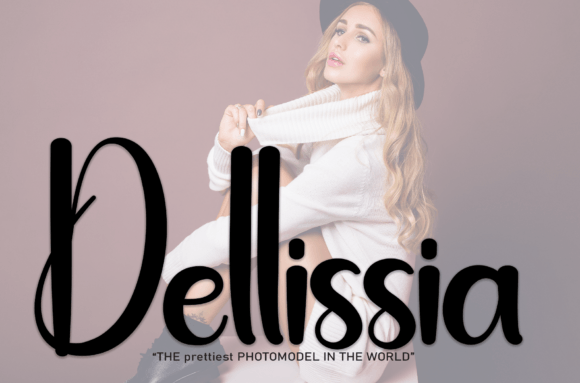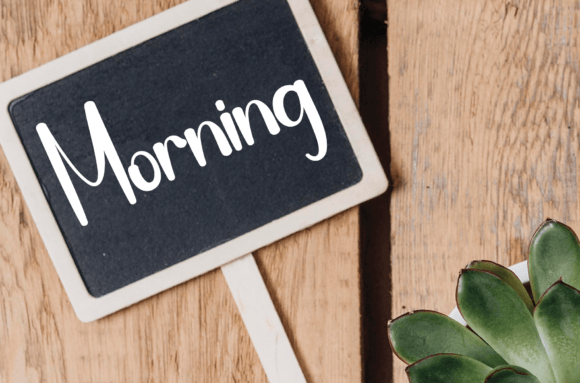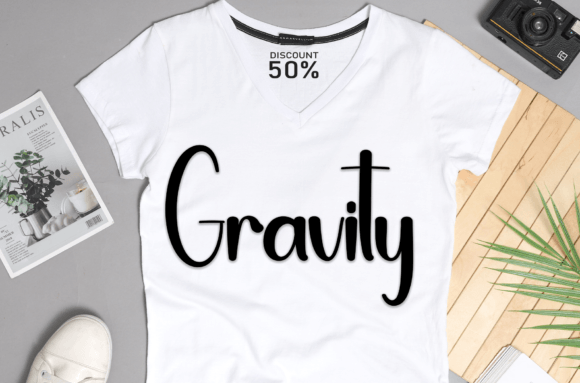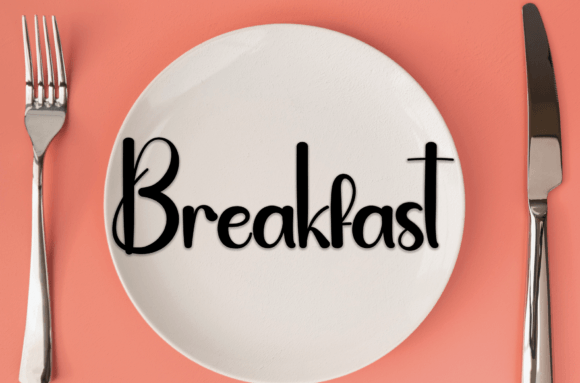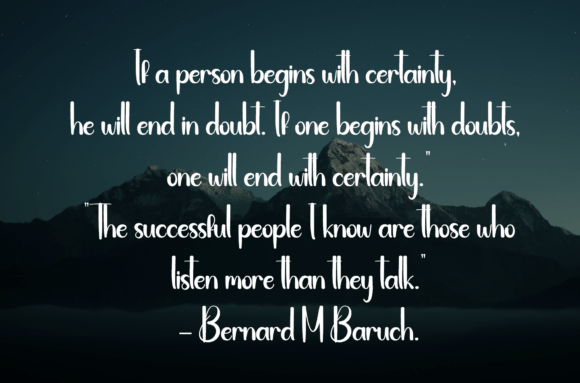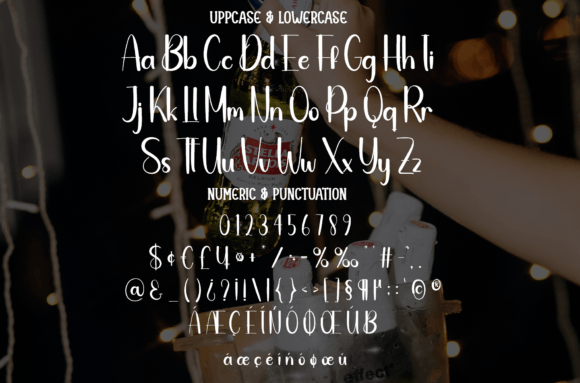
Beverage Font: Adding a Sweet and Friendly Touch to Your Designs
Are you looking for a font that can add a personal and playful touch to your designs? Look no further than the Beverage font! This sweet and friendly handwritten font is perfect for creating wedding invitations, cards, and other designs that require a fun and creative vibe.
What is Beverage Font?
Beverage font is a type of handwritten font that is designed to look like it was written with a pen or pencil. It has a casual and relaxed feel to it, making it perfect for designs that require a personal touch. The font is highly legible and can be used for a variety of purposes, from formal to informal designs.
Key Features of Beverage Font
• Sweet and Friendly: The Beverage font has a sweet and friendly feel to it, making it perfect for designs that require a personal touch.
• Handwritten: The font is designed to look like it was written by hand, giving it a unique and personal feel.
• Versatile: The Beverage font is highly versatile and can be used for a variety of purposes, from formal to informal designs.
• Easy to Read: The font is highly legible and easy to read, making it perfect for designs that require a clear and concise message.
Uses of Beverage Font
The Beverage font is perfect for a variety of design projects, including:
• Wedding Invitations: The font’s sweet and friendly feel makes it perfect for wedding invitations and other wedding-related designs.
• Cards: The Beverage font is great for creating greeting cards, birthday cards, and other types of cards that require a personal touch.
• Social Media Graphics: The font’s playful and creative vibe makes it perfect for social media graphics, such as Facebook posts and Instagram stories.
• Branding: The Beverage font can be used for branding purposes, such as creating logos and business cards.
Tips for Using Beverage Font
Here are some tips for using the Beverage font in your designs:
• Use it for Headings: The Beverage font is perfect for headings and titles, as it adds a personal and playful touch to your designs.
• Pair it with Other Fonts: The font can be paired with other fonts to create a unique and interesting design.
• Use it for Body Text: The Beverage font can be used for body text, but it’s best to use it for short paragraphs or sentences.
• Experiment with Colors: The font looks great in a variety of colors, so experiment with different colors to find the one that works best for your design.
The Beverage font is a sweet and friendly handwritten font that is perfect for adding a personal touch to your designs. Its versatility and legibility make it perfect for a variety of purposes, from formal to informal designs. Whether you’re a designer or a crafter, the Beverage font is a great addition to your font collection.
So, if you’re looking for a font that can add a fun and creative vibe to your designs, look no further than the Beverage font. With its sweet and friendly feel, it’s sure to become a favorite in your design arsenal.